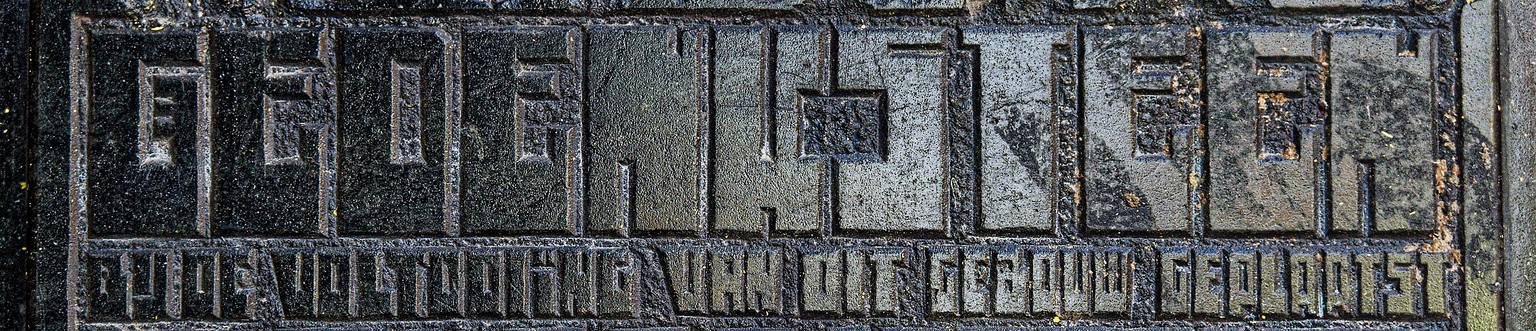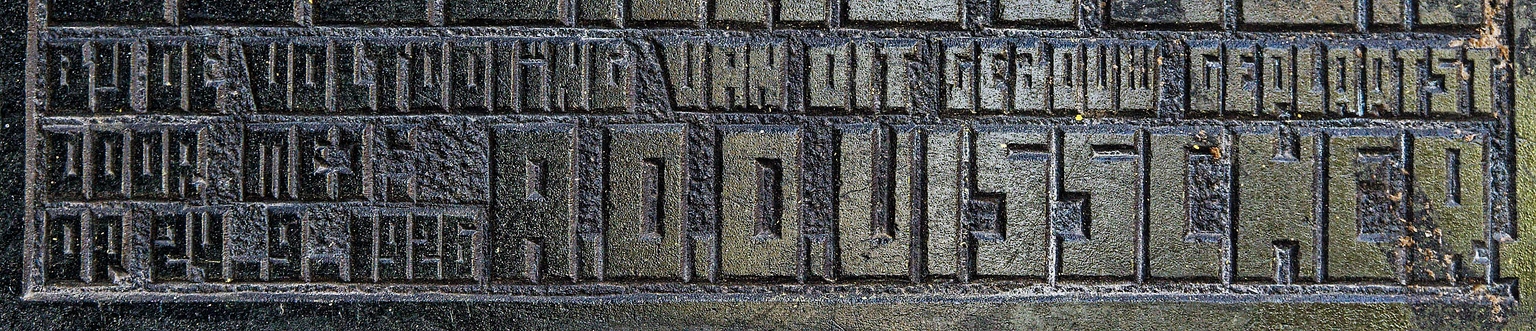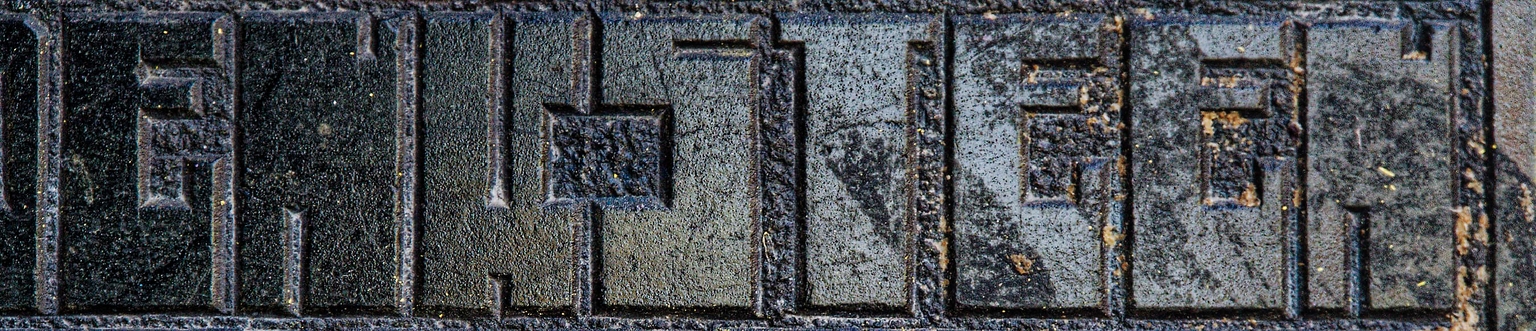
Gedenk
Gedenk is a squarish, modular sans typeface designed by Paula Mastrangelo, inspired by the carved inscription on the black stone plaque at Rozengracht 229–231 in Amsterdam. The building, designed by architect Dick Greiner, features striking letterforms that echo the ruler-based lettering systems of J.L.M. Lauweriks and H. Wijdeveld—two key figures in the Dutch modernist movement.
With its rigid geometry, modular construction, and rhythmic repetition, the original inscription embodies the formal precision and geometric idealism that defined early 20th-century Dutch architecture. In Gedenk, Mastrangelo has reimagined that spirit as a complete typeface—bold, structured, and rich with historical resonance.
Ideal for logos, brochures, websites, and identity work, Gedenk is a valuable graphic asset that can feel either vintage or futuristic, depending on the context in which it’s used. It’s a tribute to an often-overlooked corner of Dutch design history, where architecture, mysticism, and typography converge. Now available through Brutal Types.